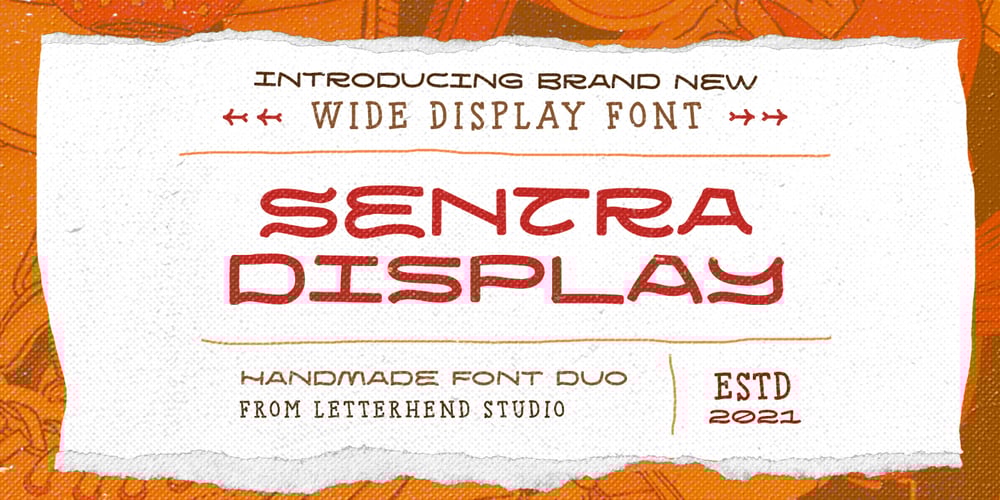
Sentra
Sentra font
Sentra Font Family was designed by Hendry Juanda and published by Letterhend. Sentra contains 2 styles and family package options. Sentra Display is a handmade font duo with wide characters. This type of font perfectly made to be applied especially in logo, and the other various formal forms such as invitations, labels, logos, magazines, books, greeting / wedding cards, packaging, fashion, make up, stationery, novels, labels or any type of advertising purpose.Features :- Two type of style- Uppercase & lowercase- Numbers and punctuation- Multilingual- Alternates & ligatures- PUA encoded